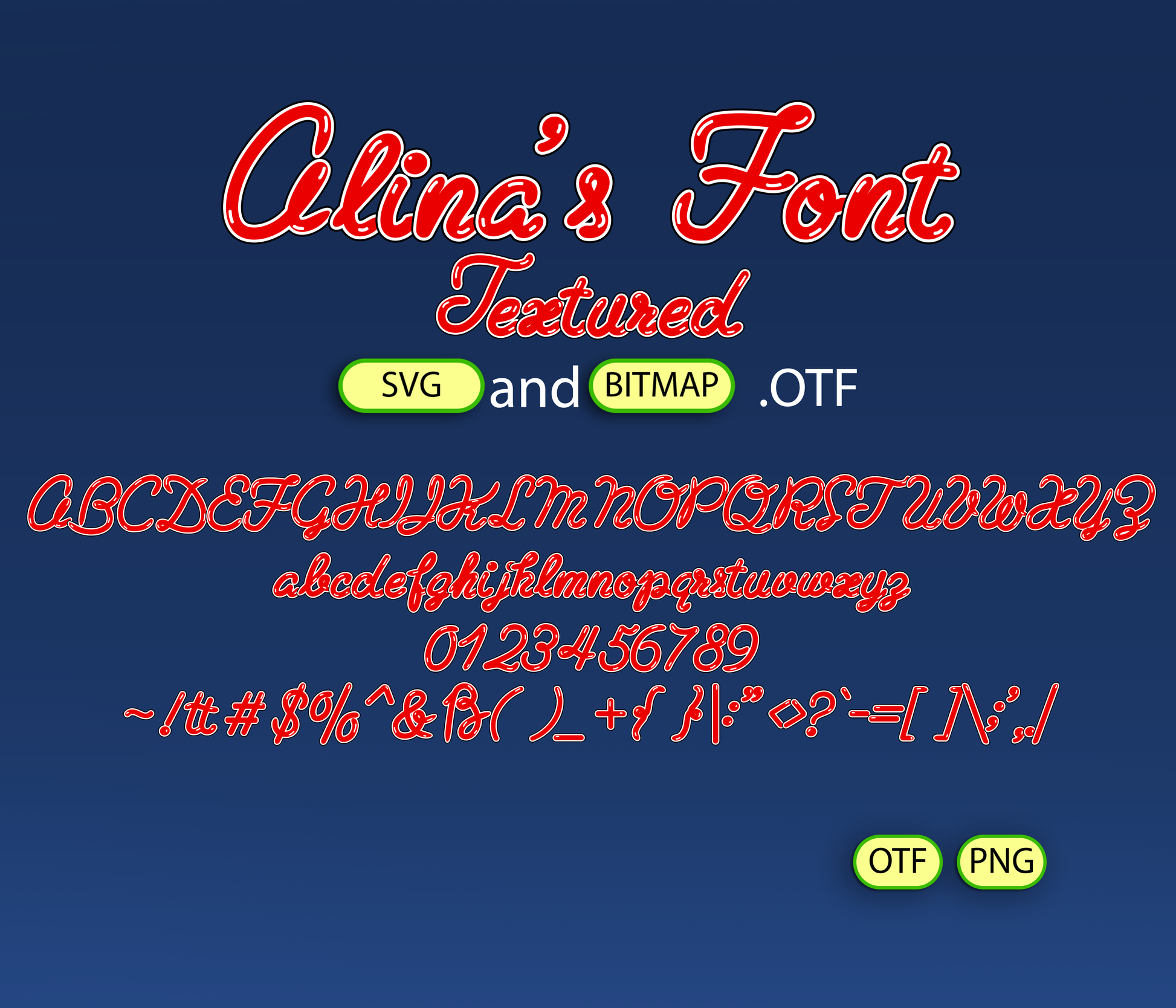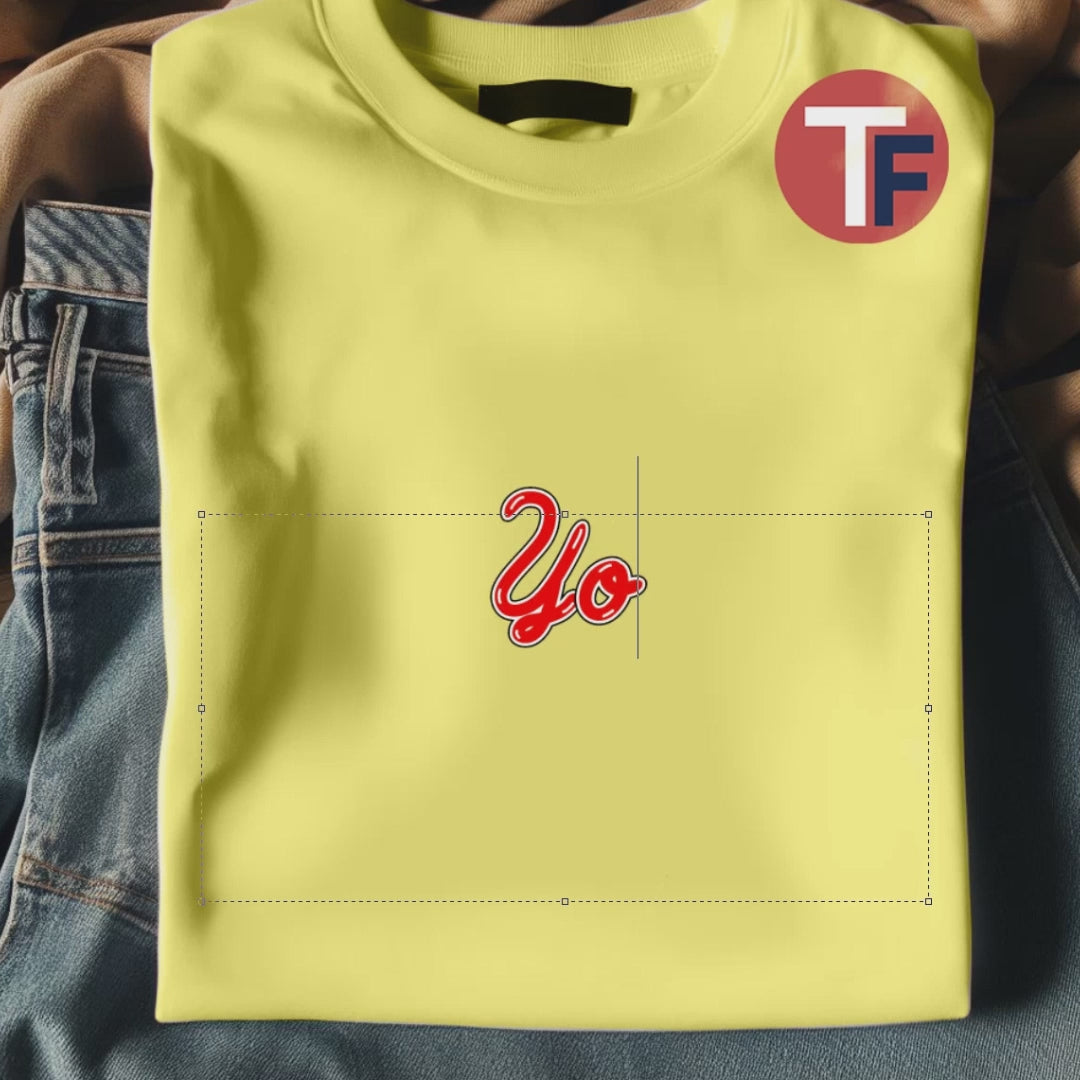
Retro Flapper Font Textured Bundle
Embrace Classic Charm with the Retro Flapper Font
Step back into the glamorous and whimsical world of classic animation with our specially designed font, inspired by the iconic flapper character known for her bold style and playful personality. Perfect for fans, event planners, and designers looking to add a touch of vintage charm to their projects, this font captures the essence of this timeless character’s appeal. Whether you're creating event invitations, designing themed merchandise, or crafting digital content, our Retro Flapper font ensures your projects resonate with the fun and flair of this beloved character.
Our Retro Flapper-inspired font features elegant, curvaceous lines and a playful, retro style that reflects the character’s classic 1930s look. This versatile font is ideal for a variety of applications:
1. Event Invitations: Perfect for creating charming invites for themed parties, retro events, or movie nights.
2. Merchandise Design: Ideal for designing t-shirts, posters, and accessories that capture the spirit of Retro Flapper.
3. Digital Media: Enhance websites, blogs, and social media content with stylish headers and graphics.
4. Educational Materials: Use in presentations, worksheets, and educational content focused on vintage animation and pop culture history.
5. Personal Projects: Add a touch of retro glamour to scrapbooking, DIY crafts, or home decor inspired by this character’s adventures.
To ensure maximum usability and flexibility, our Retro Flapper-inspired font includes both textured and non-textured variants. The non-textured version ensures compatibility with all types of software, including Canva. This feature allows users of all skill levels to seamlessly incorporate the font into their designs, enhancing accessibility and ease of use across various digital and print platforms.
Our Retro Flapper font not only pays tribute to the beloved character but also empowers you to infuse your designs with her playful and glamorous spirit. Whether you’re crafting promotional materials, designing unique merchandise, or adding a touch of vintage charm to personal projects, this font allows you to communicate with the iconic style and fun-loving essence of this classic character. Ready to bring a nostalgic flair to your creative projects? This font is your key to capturing the timeless beauty and joy of the Retro Flapper.